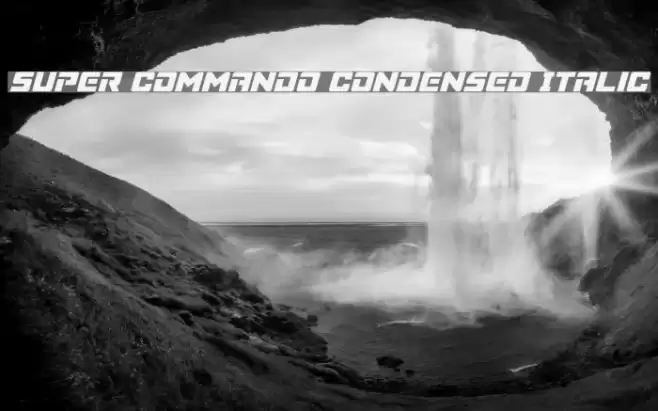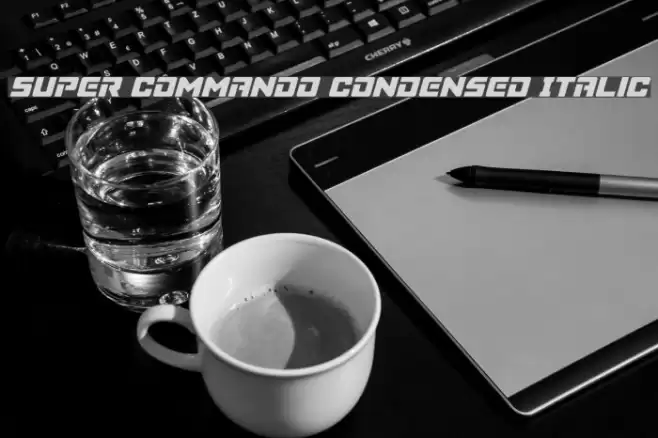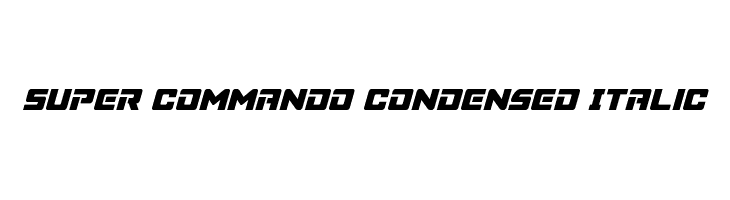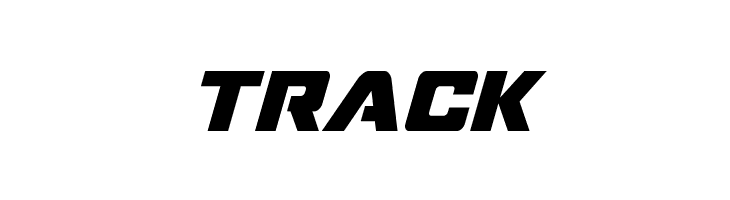
Super Commando Condensed Italic Font
Super Commando Condensed Italic Description
This font features a bold, condensed style with a distinct italic slant, giving it a dynamic and energetic appearance. The characters are tightly spaced, enhancing the compact look. The strokes are thick and consistent, providing a strong visual impact. The angular design of the letters adds a futuristic and aggressive feel, making it suitable for attention-grabbing headlines or branding that requires a modern and assertive touch. The font includes a full set of uppercase and lowercase letters, numbers, and a variety of special characters, ensuring versatility in design applications.
A bold, condensed italic font with a dynamic and futuristic style from Uncategorized fonts.
- Proposed Projects: Ideal for sports branding, action-themed posters, video game titles, and dynamic logo designs.
- Character Spacing: Tight